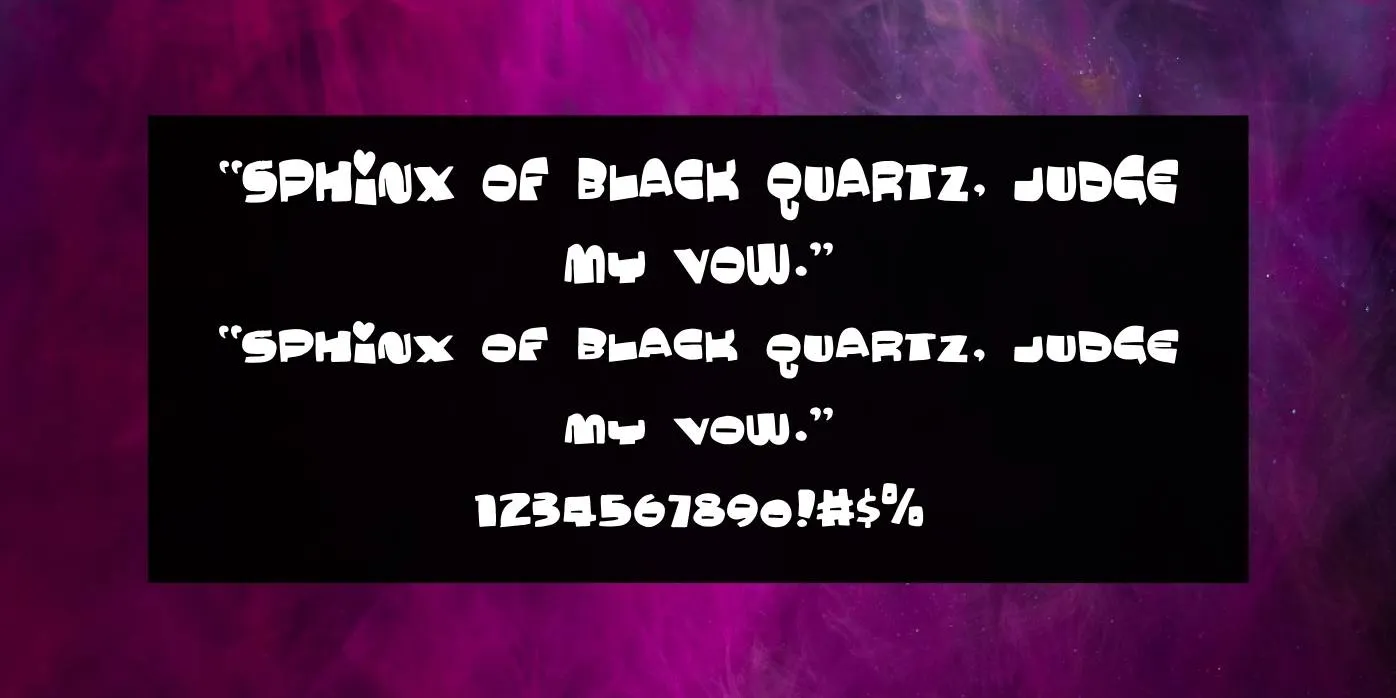
Mucho Macho Font
Mucho Macho Font is a cartoon font designed by the Pizzadude. This cartoon typeface with bold characters has an awesome look. The characters of this typeface include lowercase letters, uppercase letters, special letters, and punctuation characters. This typeface comes in both Opentype font and Truetype font formats.